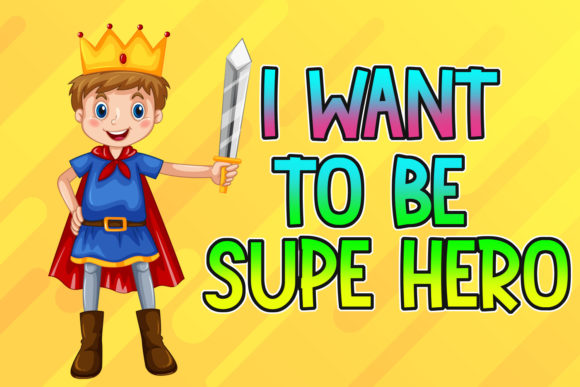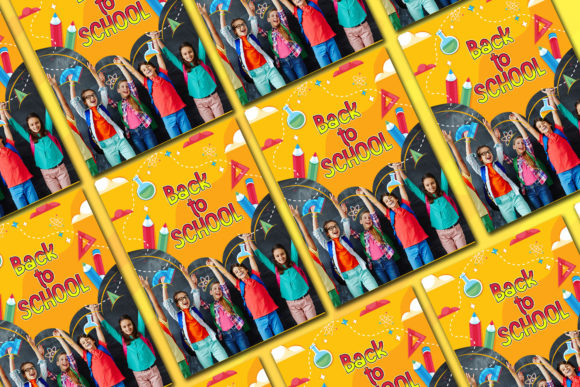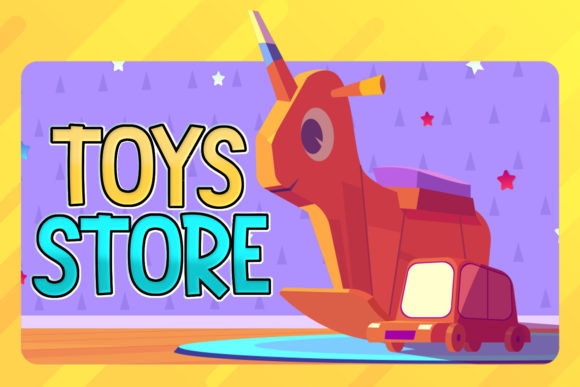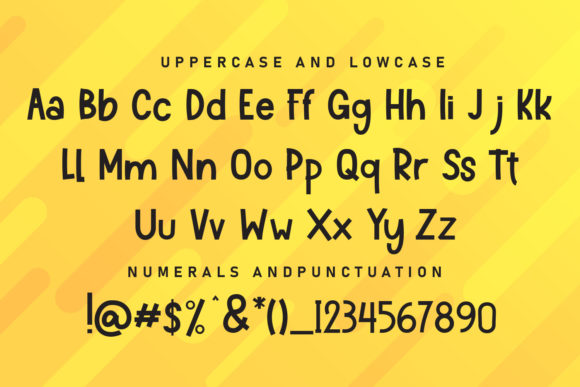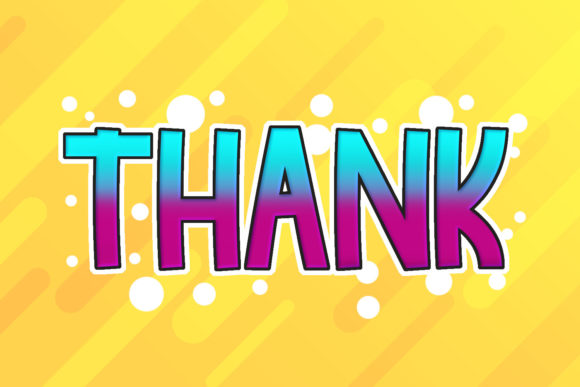
Introduction to Kids Story Font
Remember the feeling of excitement when you’re about to start a new creative project? The anticipation of bringing your ideas to life, experimenting with different fonts, and watching your design come together? For designers, it’s a thrill like no other. And what’s at the heart of a great design? A well-chosen font, of course! In this article, we’ll dive into the world of Kids Story Font, a delightful display font that’s perfect for fashion branding or editorial designs.
With its smooth curves and playful vibe, Kids Story Font is sure to add a touch of whimsy to your designs. Whether you’re working on a high-quality project or need a free download for a quick edit, this font is an excellent design resource to have in your toolkit. In the following sections, we’ll explore the benefits of using Kids Story Font and provide tips on how to incorporate it into your next creative project, even with a transparent background.
Key Features of Kids Story Font
- High-quality, colorful design perfect for a creative project involving children’s stories.
- Comes with a transparent background, allowing for seamless integration with any design or illustration.
- Features a large character set, including uppercase and lowercase letters, numbers, and special characters.
- Unique, playful characters that are sure to captivate young readers and add a touch of whimsy to any story.
Honest Review: Kids Story Font
As a designer, I’m always on the lookout for unique and creative project resources. Recently, I stumbled upon the Kids Story Font, and I must say, it’s a gem. This font is designed specifically for children’s books, making it a perfect addition to any design project.
What works well about the Kids Story Font is its playful and whimsical feel. The font is full of character, making it ideal for illustrations, titles, and other design elements that need a bit of personality. The high quality of the font is also noteworthy, making it a great addition to any design project.
- ✨ Playful and whimsical design
- ✨ High quality font
- ✨ Transparent background, making it easy to use in any design project
However, there are a few limitations to consider. The font is only available in a limited range of sizes, which may limit its use in certain design projects. Additionally, the font may not be suitable for more formal or professional projects, as it’s designed specifically for children’s books.
Overall, I’m impressed with the Kids Story Font. It’s a great resource for designers working on children’s books or other creative projects. With its playful design and high quality, it’s definitely worth checking out.
Kids Story Font is a high-quality design resource ideal for creative projects requiring a playful and engaging style. This free download features a transparent background, making it easily customizable for various applications.
Use the font in combination with other design elements to create a visually appealing layout. Experiment with different font sizes and colors to add emphasis to your text. Consider using the font in a variety of creative projects, such as children’s book illustrations, educational materials, or marketing campaigns.
Kids Story Font is ideal for a variety of applications, including children’s book illustrations, educational materials, marketing campaigns, and more. The font’s playful and engaging style makes it perfect for projects targeting a young audience.
Yes, the Kids Story Font is available in high resolution, making it suitable for use in a variety of design applications, from print to digital media. The font is designed to be crisp and clear, even at large sizes.